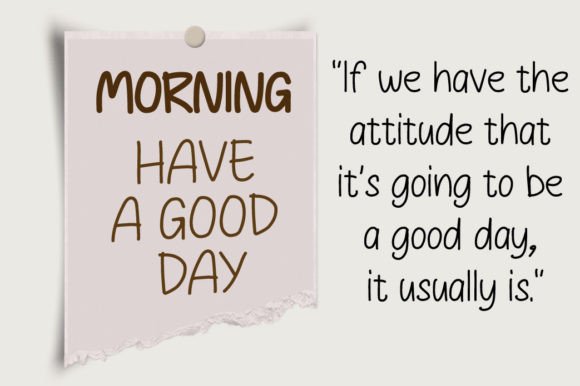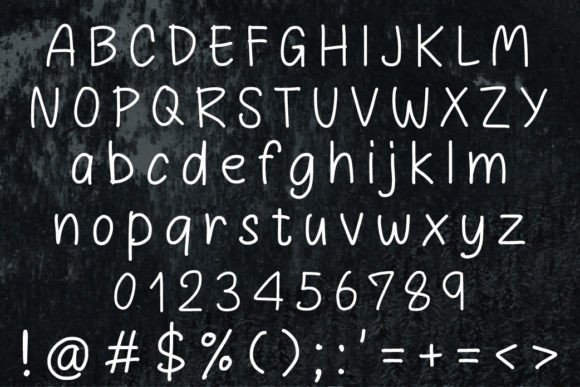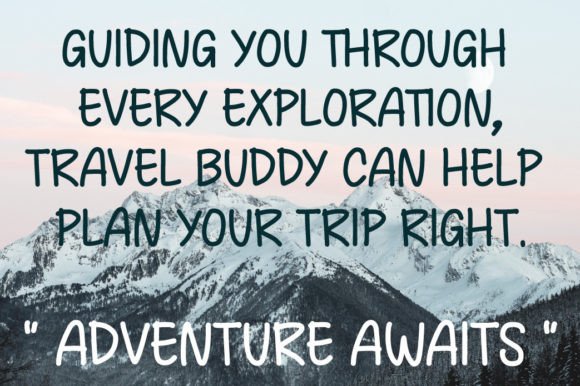
Introduction to Kanok Write Font
Have you ever found yourself scribbling down ideas on a sticky note, or jotting down a quick reminder on a piece of scrap paper? That’s where the magic happens, and the Kanok Write Font comes into play. This charming, handwritten font is perfect for those moments when you need to express yourself in a more creative and personal way.
As a designer, you’re always on the lookout for unique and high-quality design resources that can elevate your creative projects. The Kanok Write Font is a valuable addition to any designer’s toolkit, offering a transparent background that makes it easy to integrate into any design. With its natural-looking characters and free download option, this font is a must-have for anyone looking to add a touch of personality to their work.
Key Features of Kanok Write Font
- Unique characteristic: Elegant and modern design, perfect for headings and titles in creative projects
Honest Review: Kanok Write Font
As a designer, I’m always on the lookout for high-quality design resources that can elevate my creative projects. Recently, I stumbled upon the Kanok Write Font, and I must say, it’s been a game-changer for me.
What works well: ✨ The font is incredibly versatile and can be used for a variety of design projects, from brochures to websites. The design is clean, modern, and sophisticated, making it perfect for creative projects that require a touch of elegance. The free download option is also a huge plus, as it allows designers like me to experiment with the font without breaking the bank.
What doesn’t work so well: ⚠️ While the font is high quality, it can be a bit challenging to work with on a transparent background. The text may appear slightly fuzzy or distorted, which can be a issue for designers who rely on transparent backgrounds for their designs.
Overall, I’m thoroughly impressed with the Kanok Write Font. Its high quality, versatility, and free download option make it a valuable addition to any designer’s toolkit. While it may have some limitations, it’s definitely worth the download for any creative project.
- High-quality design suitable for various creative projects
- Modern and sophisticated design aesthetic
- May appear fuzzy on transparent background
Tips for Getting the Most Out of Kanok Write Font
To get the most out of the Kanok Write Font, experiment with different combinations of colors and designs. Use the font to create a cohesive look and feel, and don’t be afraid to try new things. With a little creativity, you can use the Kanok Write Font to create truly unique and effective designs.
Common Use Cases for Kanok Write Font
The Kanok Write Font is a versatile design resource that can be used in a variety of creative projects. Some common use cases include:
- Branding
The Kanok Write Font has a transparent background, making it ideal for use on various backgrounds, including images and videos. This feature allows for seamless integration with other design elements and helps create a cohesive look for your creative project.
Q: Is the Kanok Write Font a high-quality font, suitable for professional use?
Yes, the Kanok Write Font is a high-quality font, designed to meet the needs of professional designers and artists. It features a clear and legible design, making it suitable for a wide range of creative projects, from print to digital media.